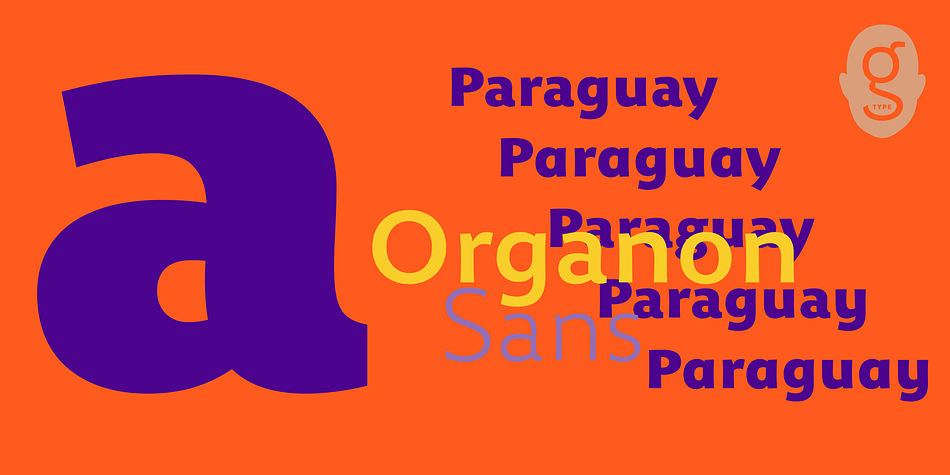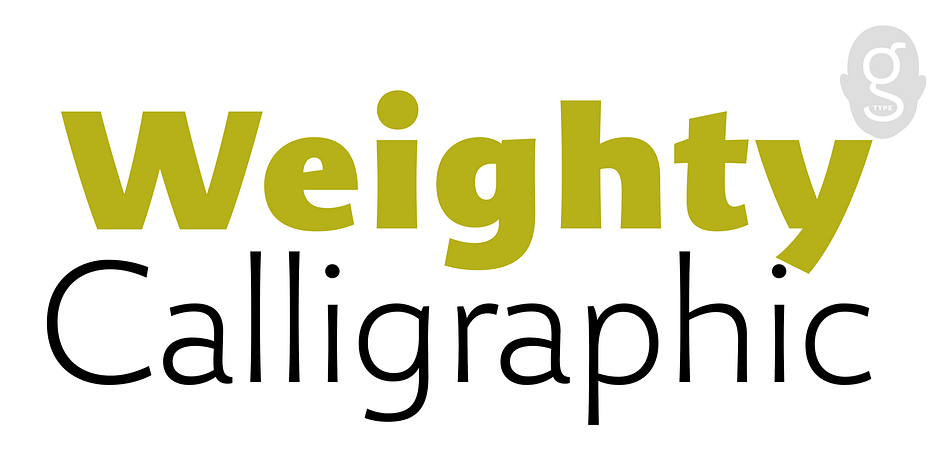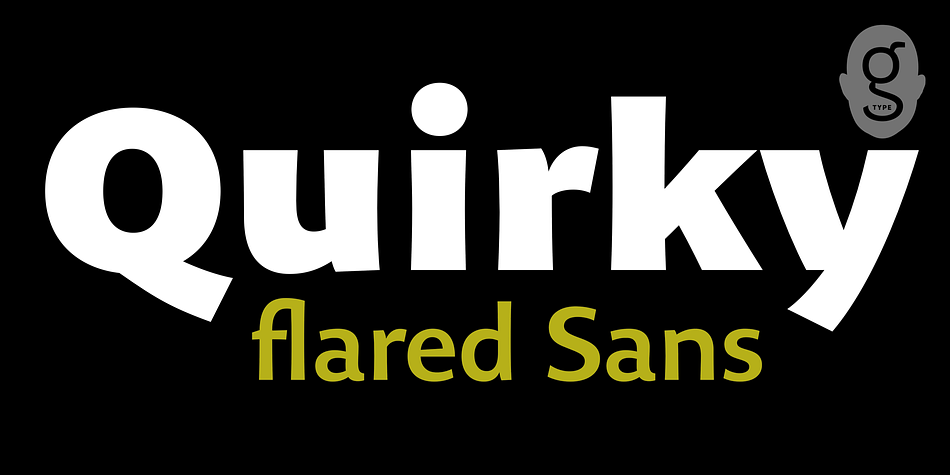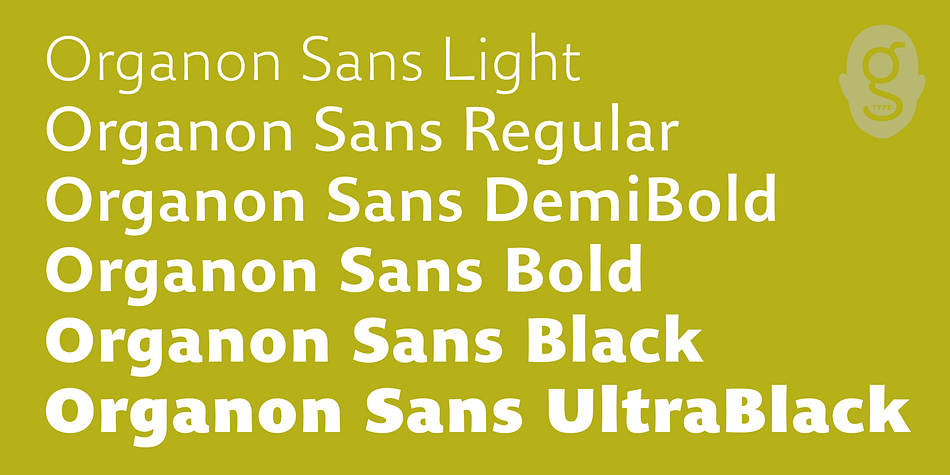
Designed by Nick Cooke, Organon Sans is a sans serif font family. This typeface has six styles and was published by G-Type.
The six weight Organon Sans typeface is a stylish and feature-laden OpenType family which complements its sister Organon Serif.
Both Organon families work in tandem to create an elegant, legible and thoughtfully designed suite of fonts which share similar cap & x heights, stem widths and ascender/descender values.
Tapered stems give the Organon Sans fonts an attractively robust appearance. A well stocked glyph palette includes multiple ligatures and both lining & old style numerals in proportional and tabular widths.
Alternate between different versions of letters a, g & y by using the 3 style sets in OpenType compatible software programs.